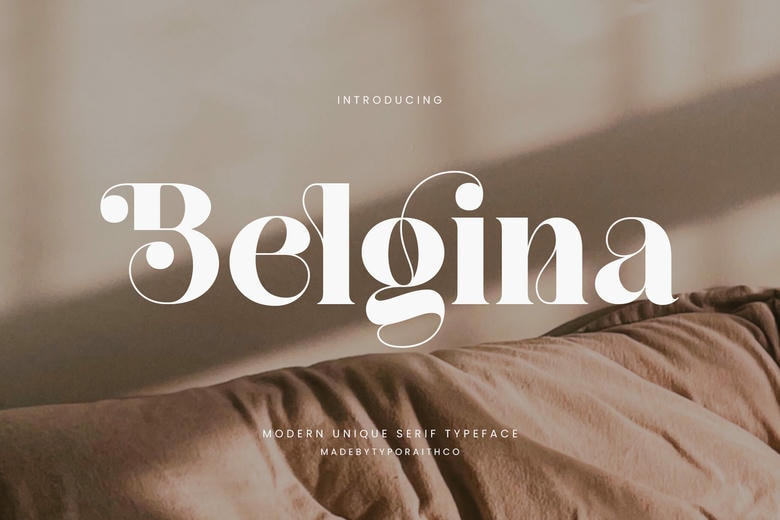
Belgina Font
Belgina is a contemporary serif typeface designed with grace and style in consideration. Belgina is created to provide a classic and modern touch, with elegant letterforms, high contrast lines, and smooth curves that add a luxurious touch to any design.
This font is ideal to designers who desire to produce high-quality visuals with a powerful identity. Belgina is a great brand to use in fashion branding, editorial layouts, logos, wedding designs, product packaging, and social media visuals. Belgina is stylish with its details and classy look, which adds personality and exclusivity without being messy or unreadable.
Belgina Serif Font